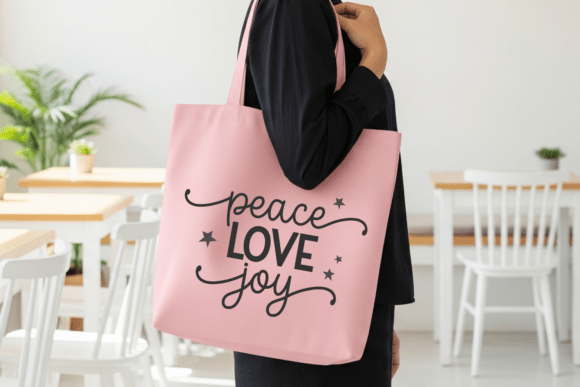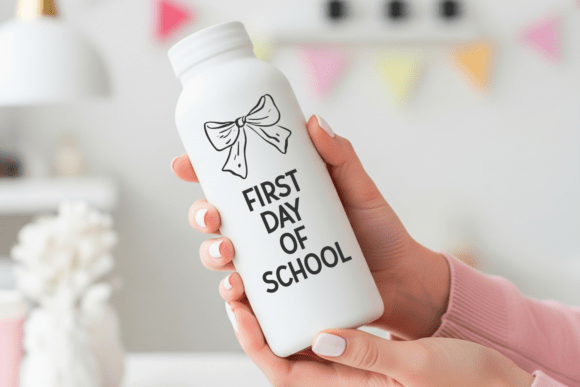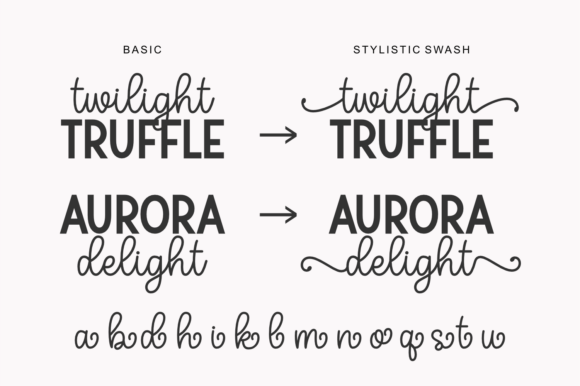
Introduction to Handmade Cupcakes Font
Have you ever stared at a blank canvas, waiting for inspiration to strike? The blank page, the empty design board, or even the void of a digital canvas – it’s a familiar feeling for designers. But what if you had the perfect tool to spark that creative fire? Enter the Handmade Cupcakes Font, a delightful duo typeface that will make your designs as sweet as a freshly baked treat.
As a designer, you’re always on the lookout for the perfect design resource to elevate your creative project. The Handmade Cupcakes Font is that secret ingredient that adds a touch of sophistication and modernity to your work. With its crisp display sans-serif and whimsical monoline script, this font is the perfect blend of style and charm. And the best part? It’s available for free download, so you can experiment with it without breaking the bank.
Key Features of Handmade Cupcakes Font
- Unique, hand-drawn style with intricate details perfect for bakeries, cafes, or dessert shops
- Perfect for creating eye-catching signage, menus, or promotional materials for your business
Honest Review: Handmade Cupcakes Font
I recently came across the Handmade Cupcakes Font, and I must say it’s a delightful addition to any design project. This font is perfect for those who want to give their creative project a personal touch. One of the standout features of this font is its high quality and intricate design, making it suitable for various design applications.
- ✨ High-quality design with intricate details
- ✨ Suitable for various design applications, including print and digital media
- ⚠️ Limited character set, which may not be suitable for extensive text-based projects
- ⚠️ No transparent background option, which may limit its use in certain design scenarios
Overall, the Handmade Cupcakes Font is a great addition to any design resource collection. While it has its limitations, its high quality and free download make it a worthwhile resource for designers looking to add a personal touch to their creative projects.
The Handmade Cupcakes Font is a high-quality, free download design resource ideal for creative projects. It features a transparent background, making it perfect for overlaying on images or using as a standalone element.
The Handmade Cupcakes Font is ideal for use in baking and food-related designs, such as cupcake labels, bakery logos, and recipe cards. It’s also suitable for use in other creative projects, such as party invitations and wedding decorations.